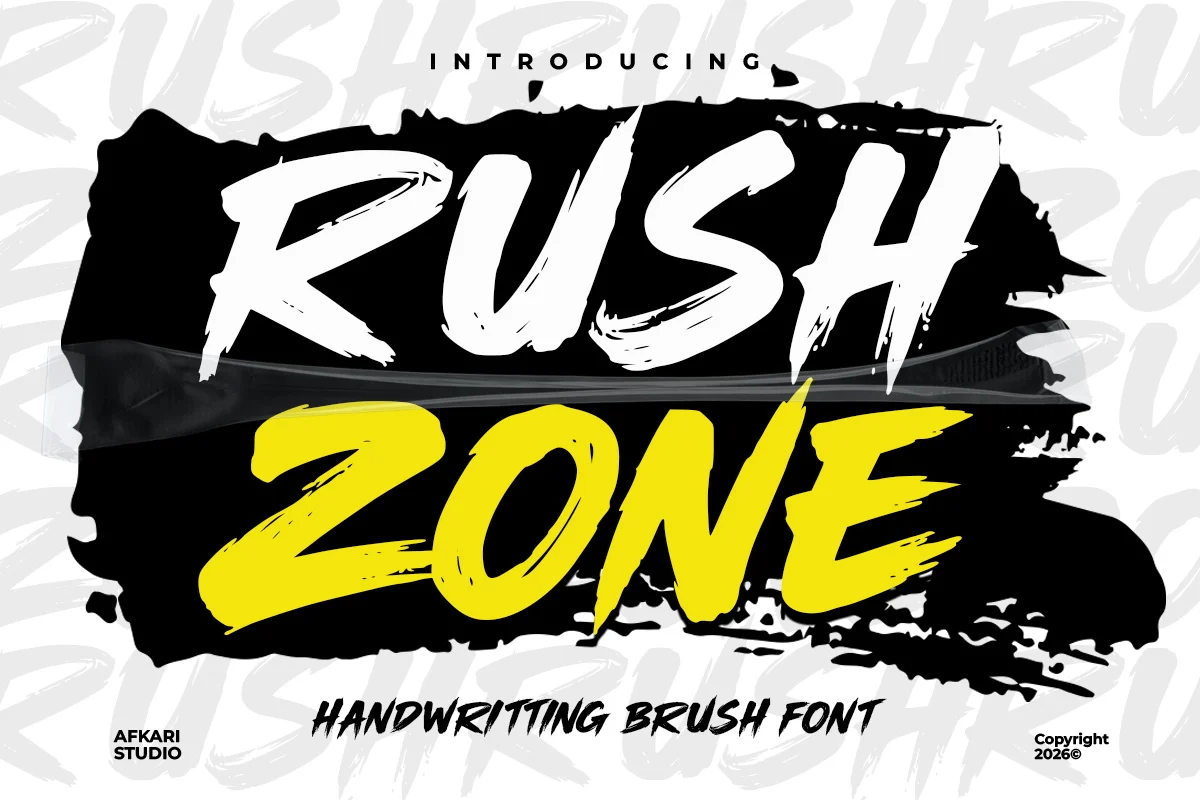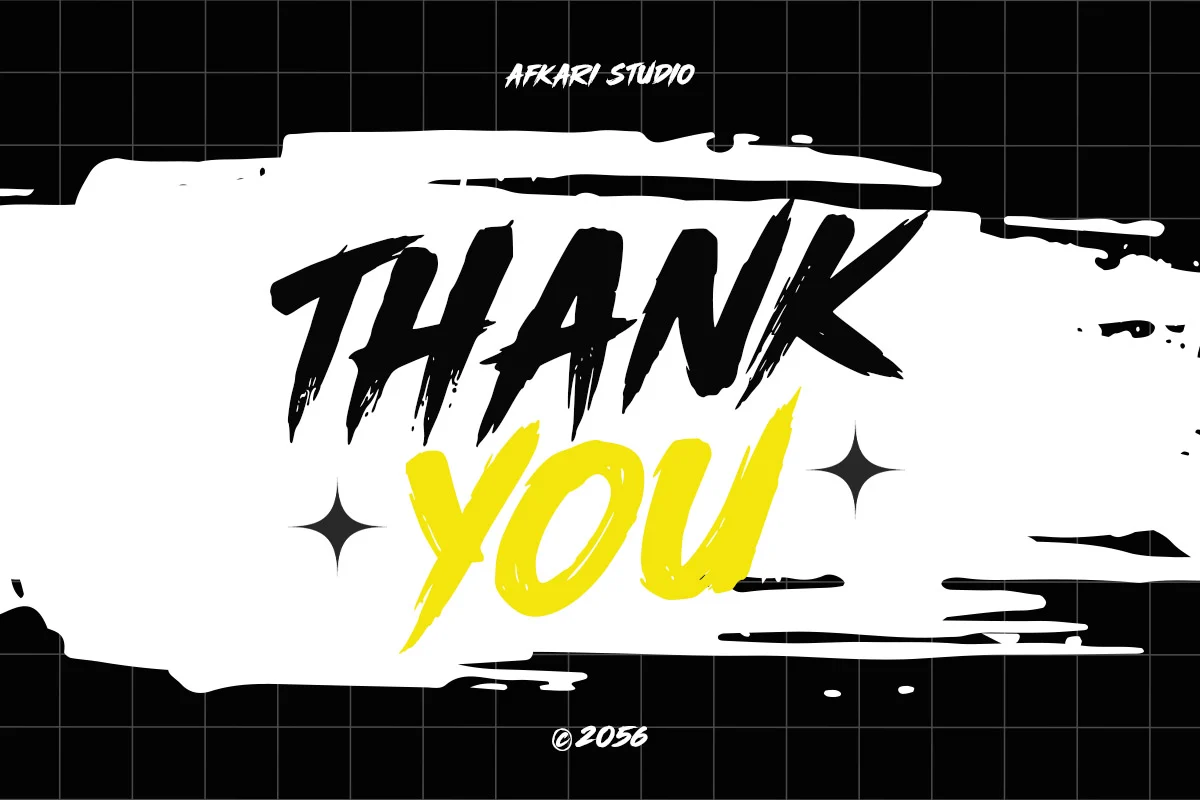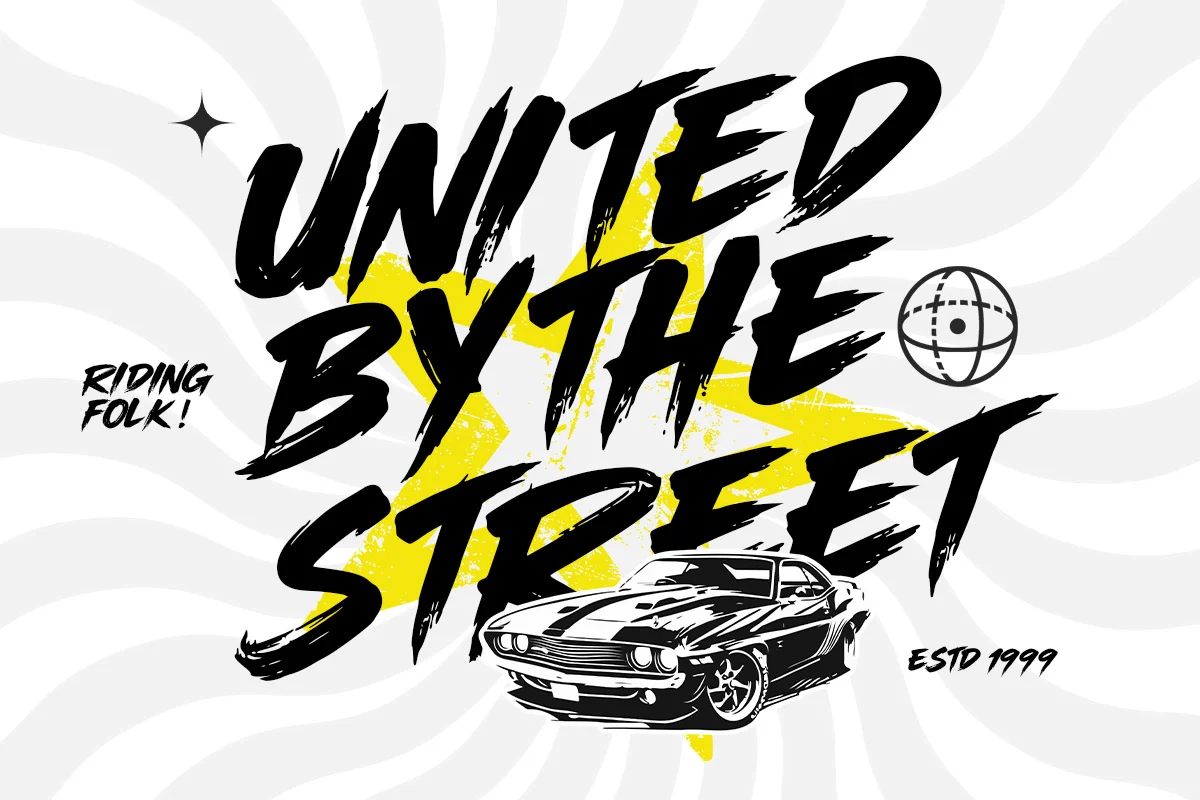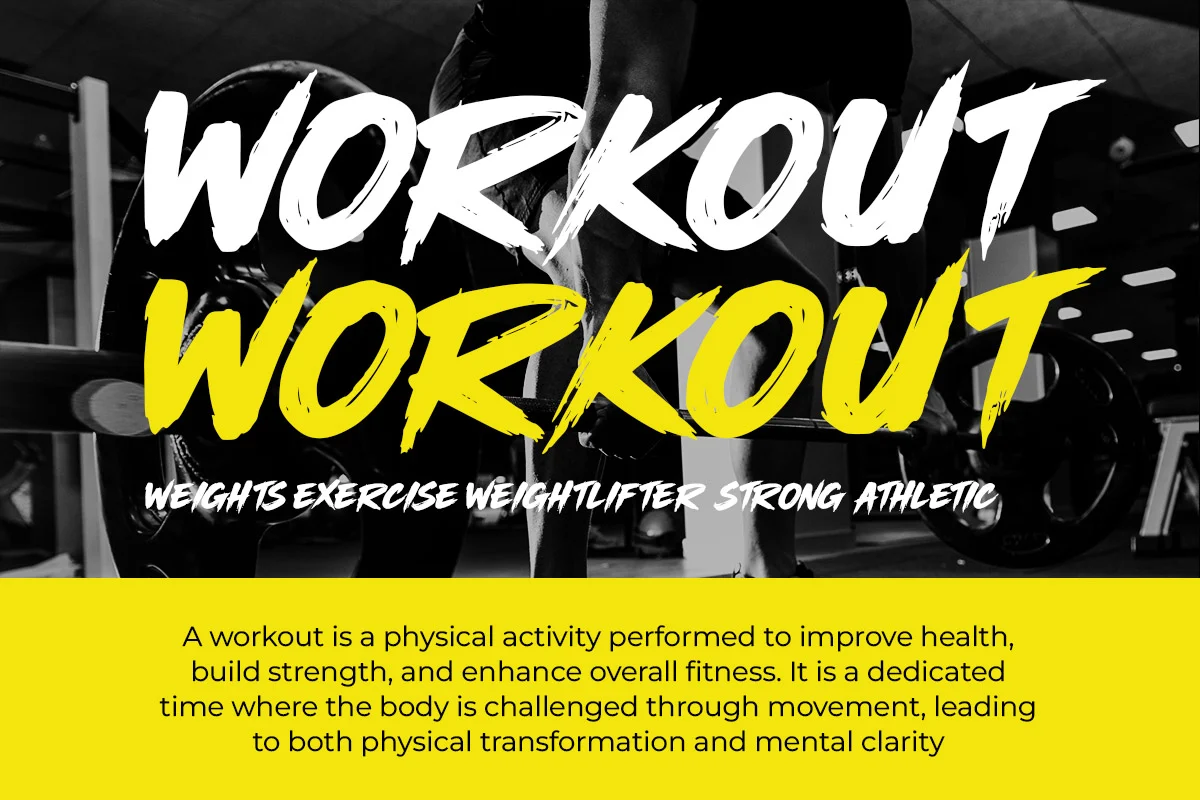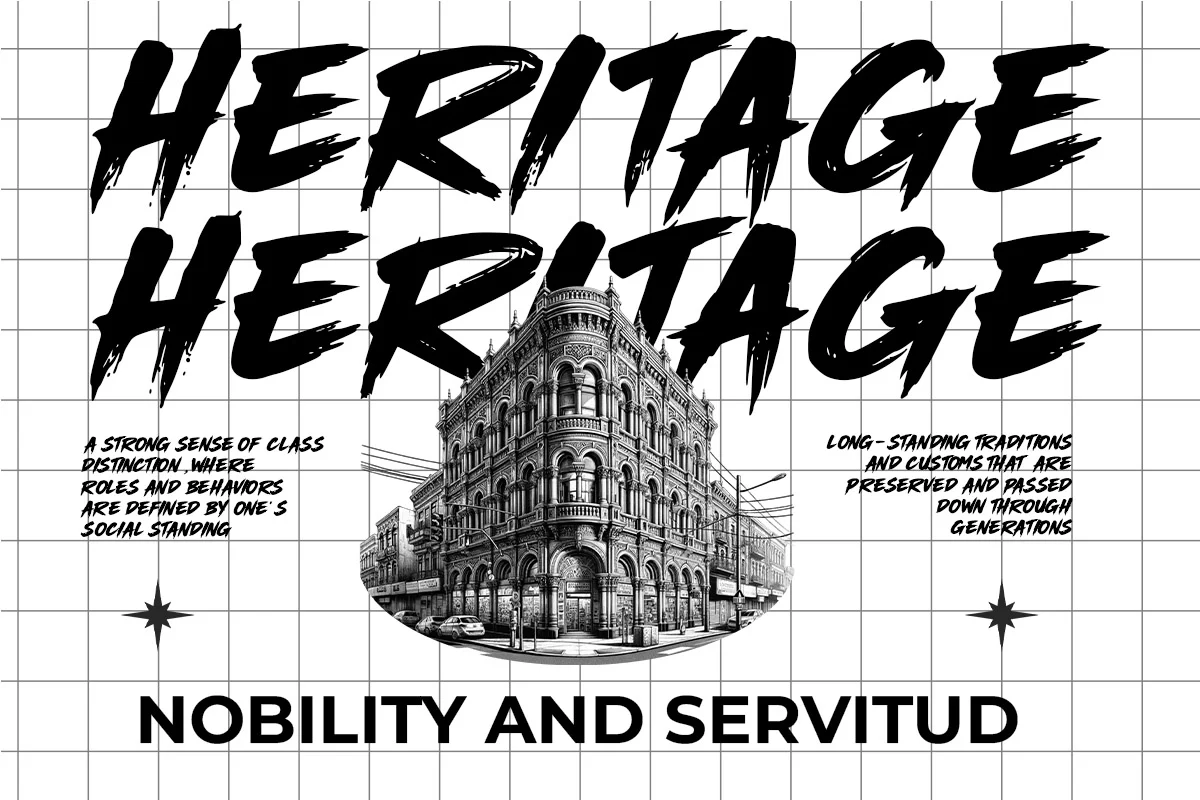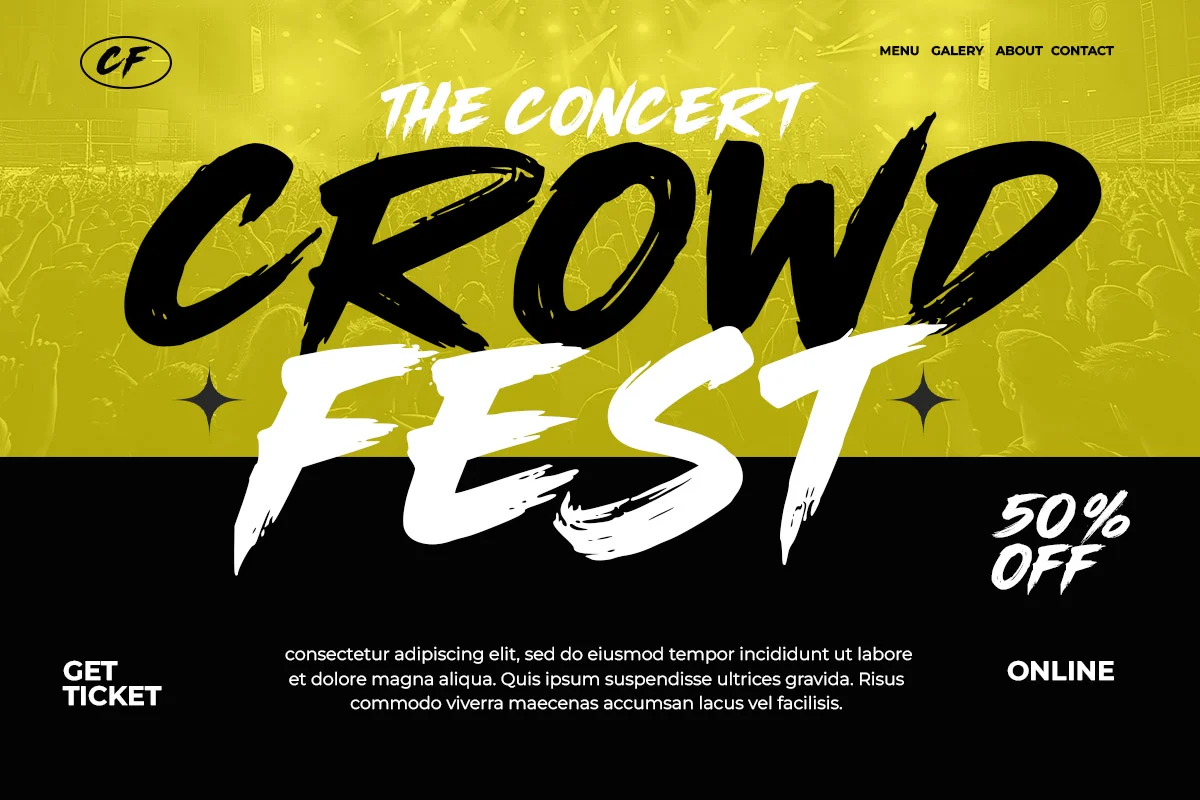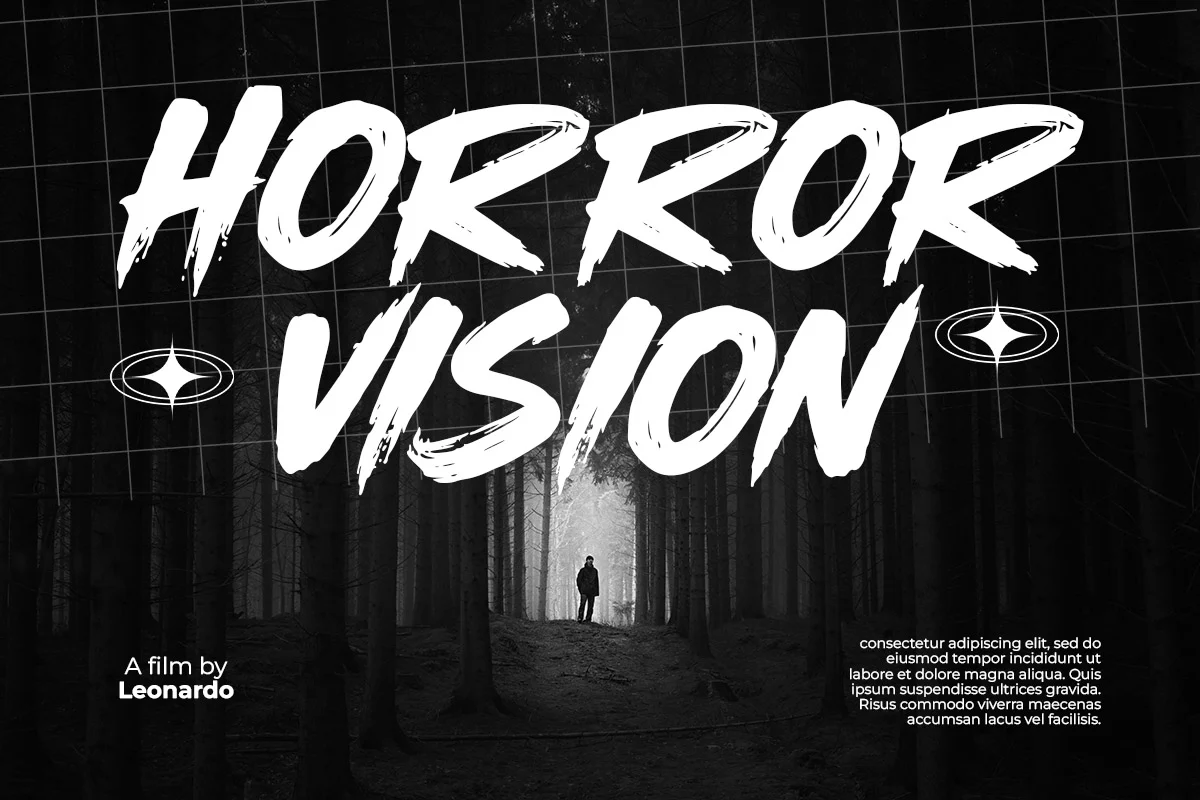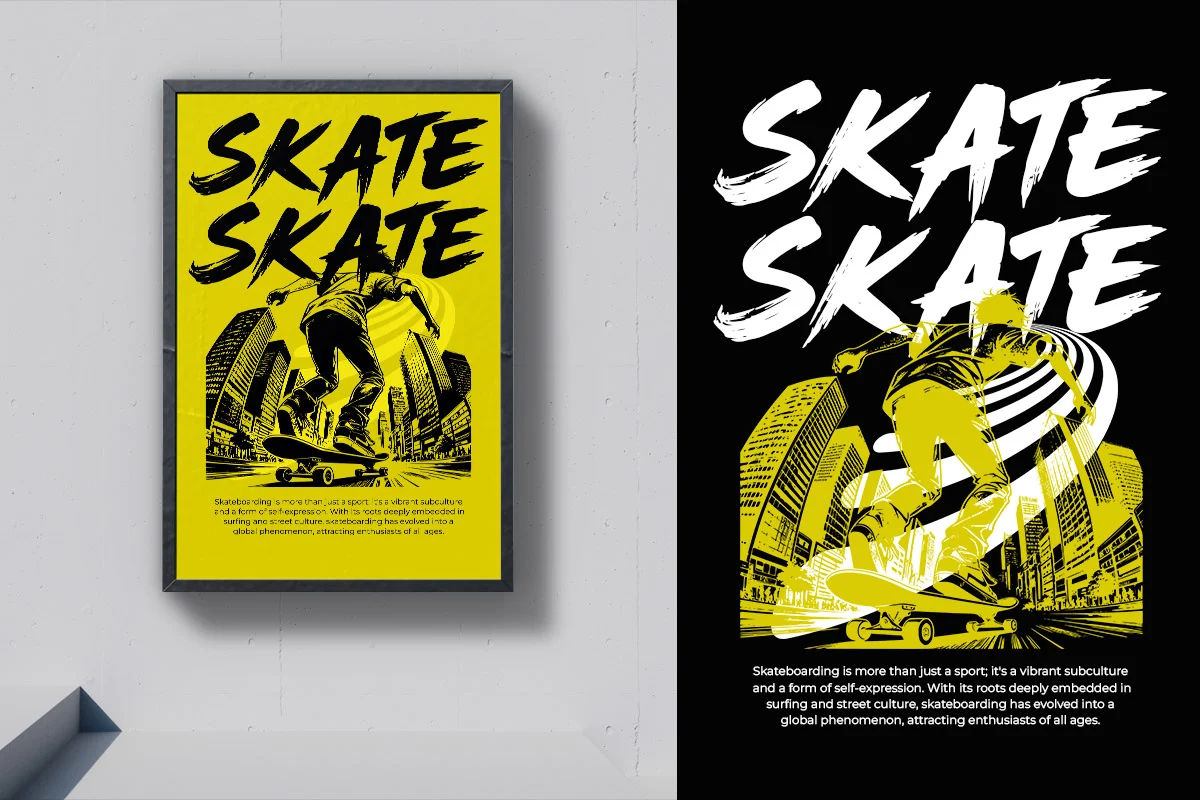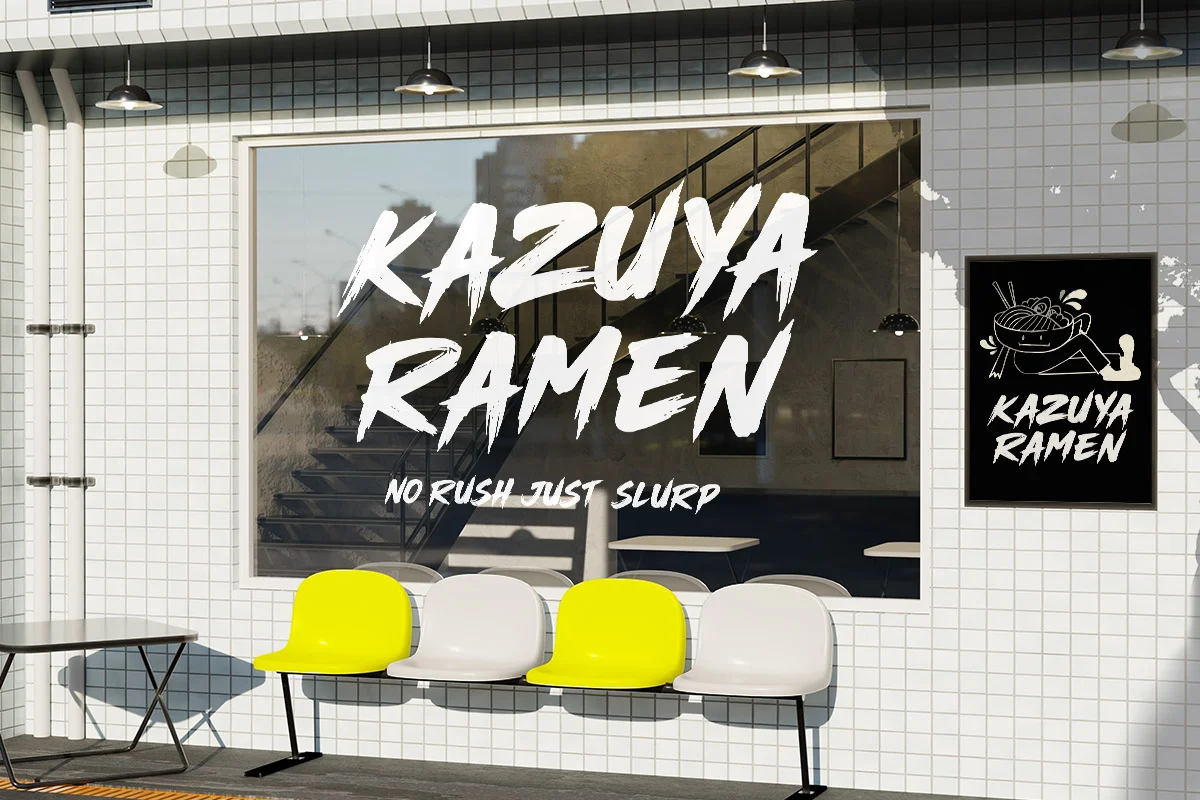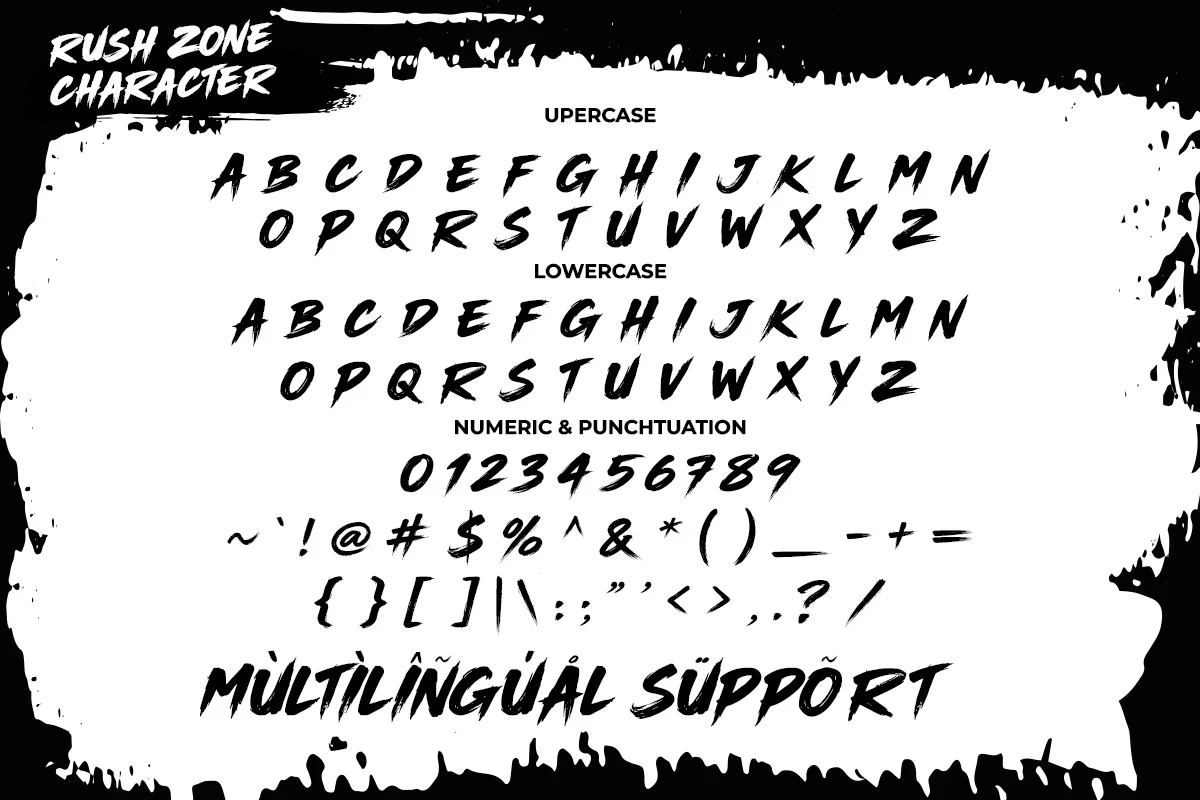
Rush Zone - Handwritting Brush Font
Rush Zone is a bold handwriting brush font crafted to deliver energetic, expressive, and natural typography for modern creative projects. Inspired by fast brush strokes and spontaneous handwriting movement, this font captures a strong handcrafted character that instantly attracts attention.
Designed for designers who need typography with dynamic personality, Rush Zone combines strong brush textures with excellent readability, making it perfect for impactful headlines and branding visuals.
Whether used for posters, branding, packaging, merchandise, or social media graphics, Rush Zone adds an authentic hand-painted feel that makes designs look bold and alive across both digital and print media.
• Bold and expressive brush strokes
• Natural handwritten movement
• Numbers & punctuation
• Strong readability for headlines
• Ideal for branding & signature logos
• Mültîlíñgúãl Sùppört for; ä ö ü Ä Ö Ü ß ¿ ¡
Whether you’re creating bold branding, energetic posters, or expressive promotional materials, Rush Zone helps your design stand out with dynamic personality and handcrafted warmth. Add a powerful and lively brush lettering style to your next creative project.